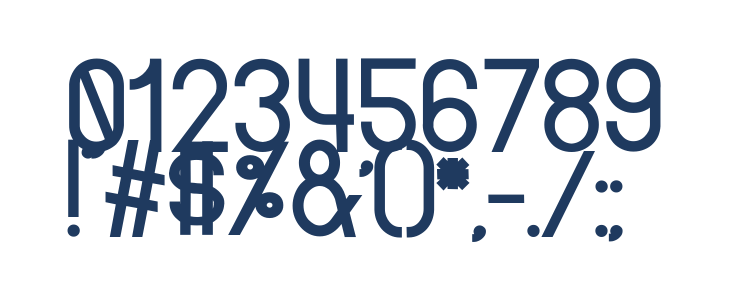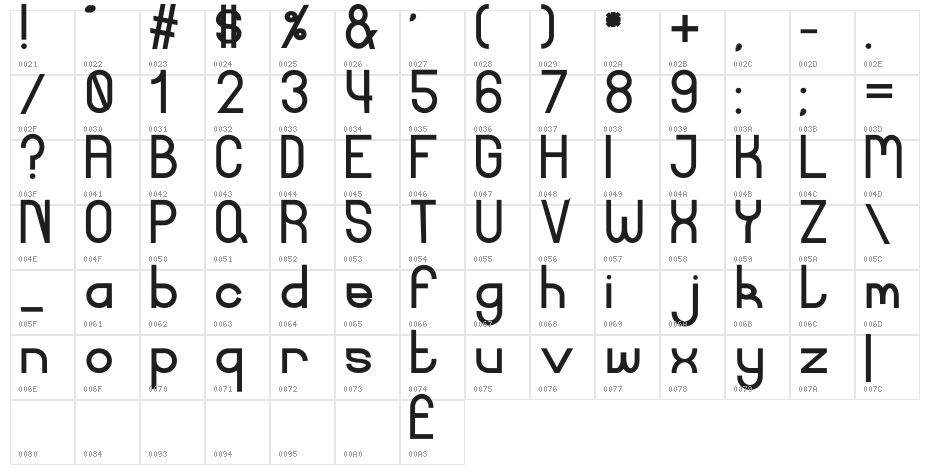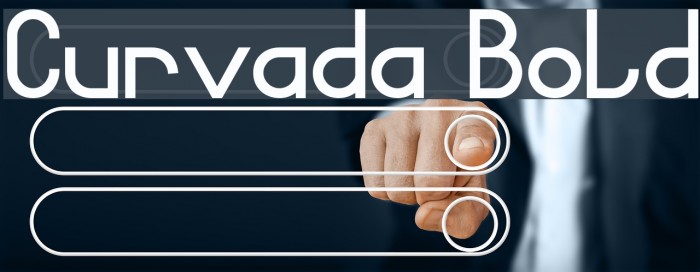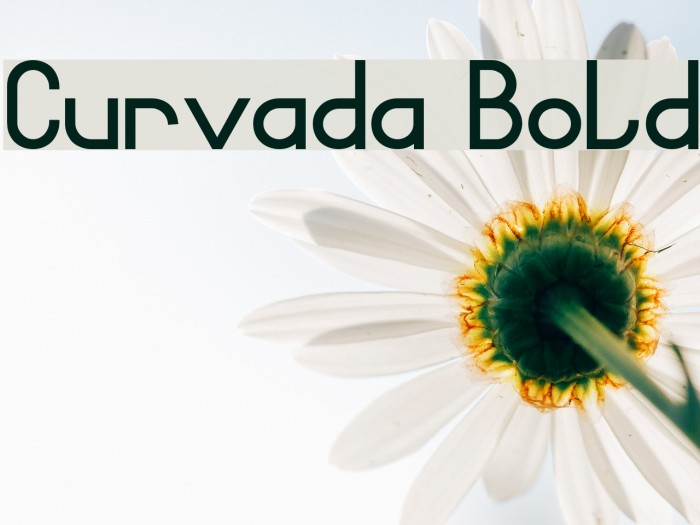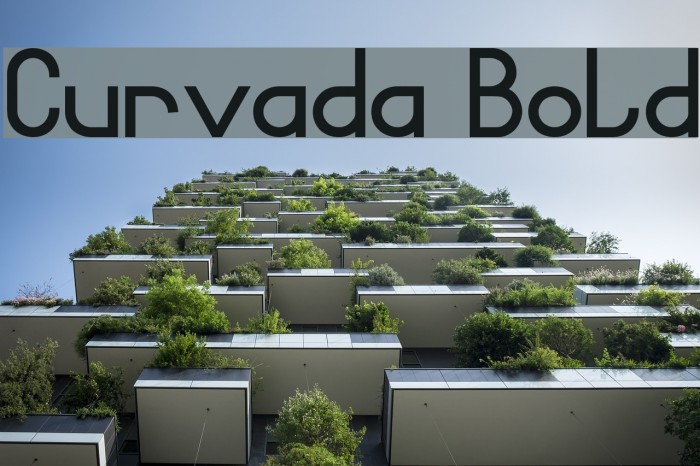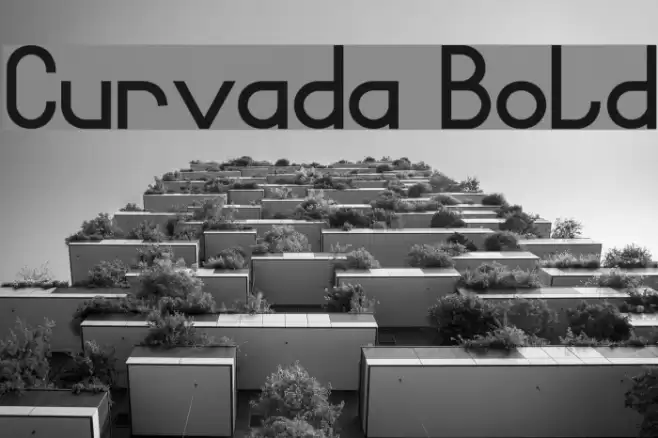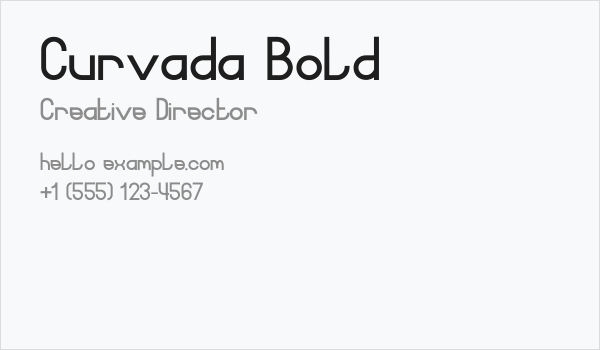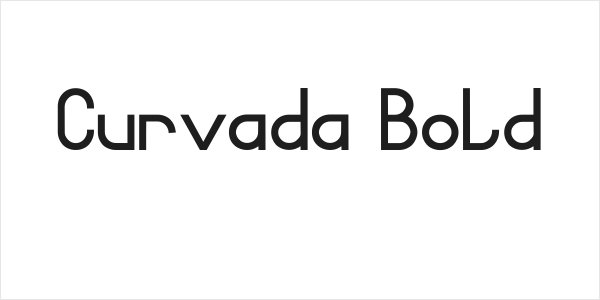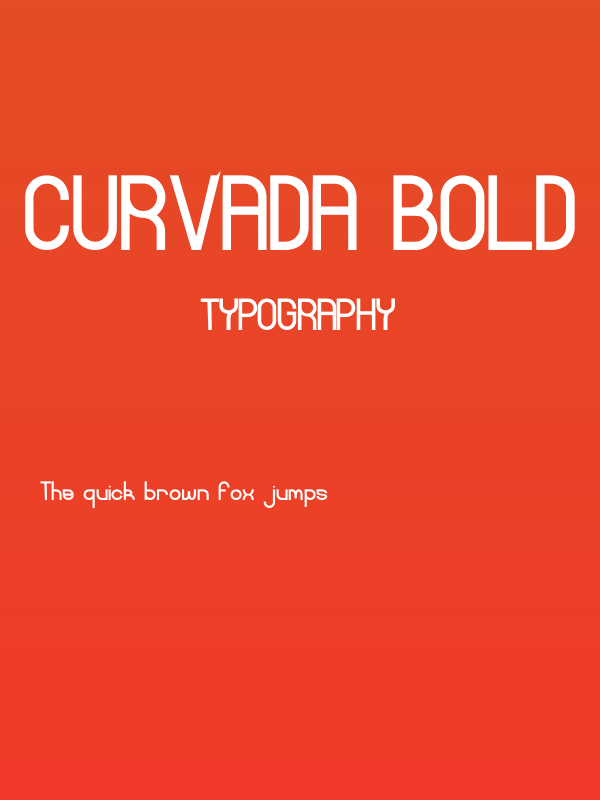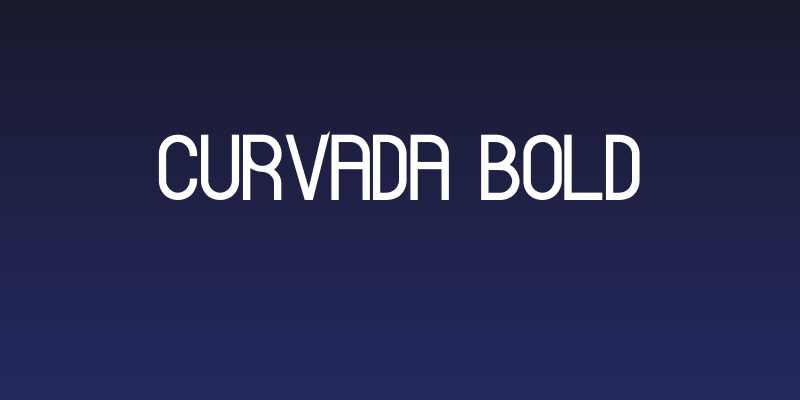
Curvada Bold Font
Curvada Bold Description
This font features a bold and modern design with rounded edges and a geometric structure. The uppercase letters are uniform in height, while the lowercase letters maintain a consistent baseline with slight variations in height for certain characters like 'b', 'd', and 'h'. The numerals are bold and clear, making them easily readable. Special characters are distinct and maintain the same boldness as the letters and numbers. The overall appearance is clean and contemporary, suitable for a variety of design applications.
| Proposed Projects | Ideal for branding, headlines, posters, and digital media where a modern and bold statement is needed. |